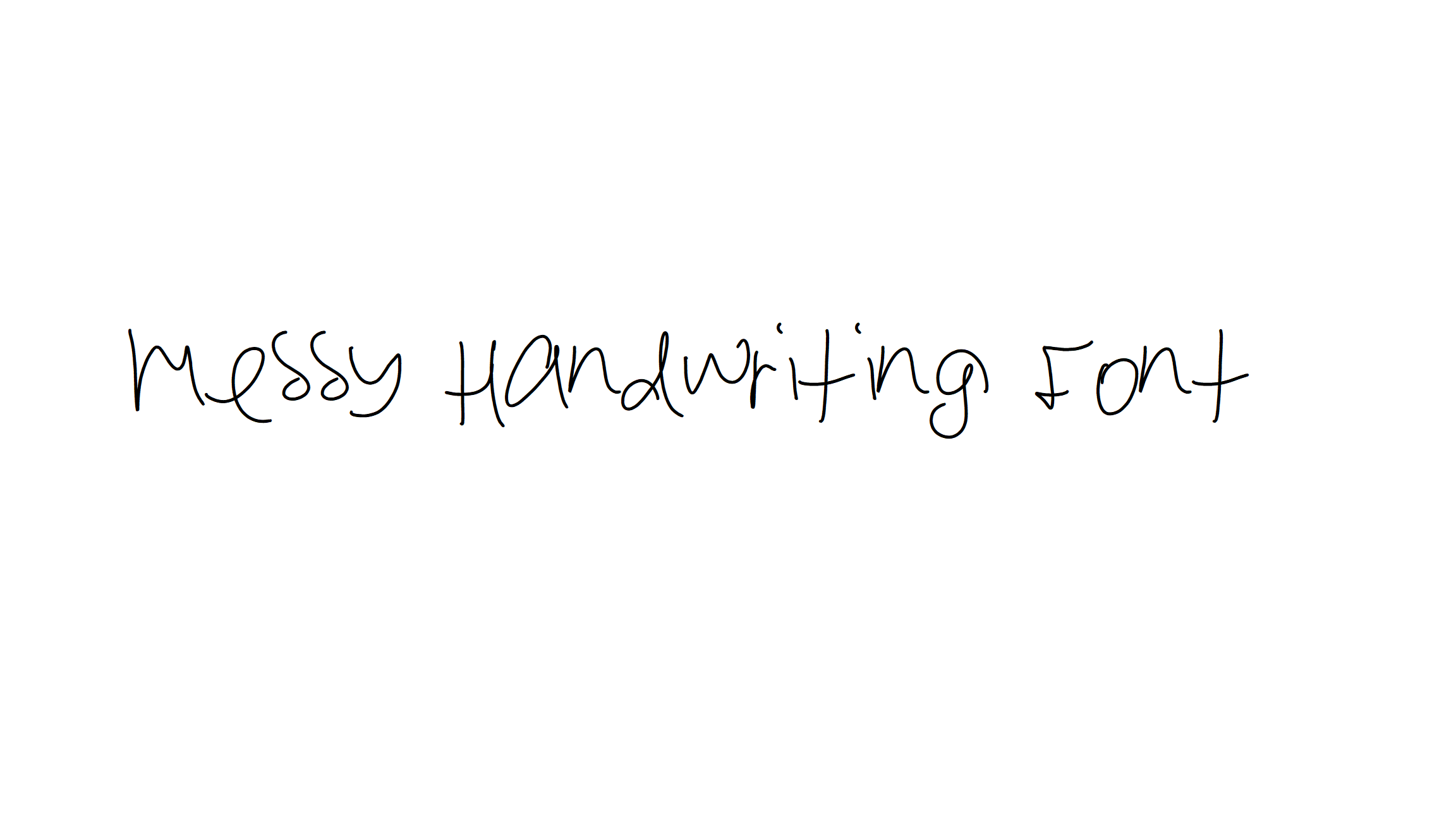
Messy Handwriting Font
Messy Handwriting font is a casual lettering font with a natural feel.
- uppercase & lowercase letters
- numerals
- punctuation & ligatures